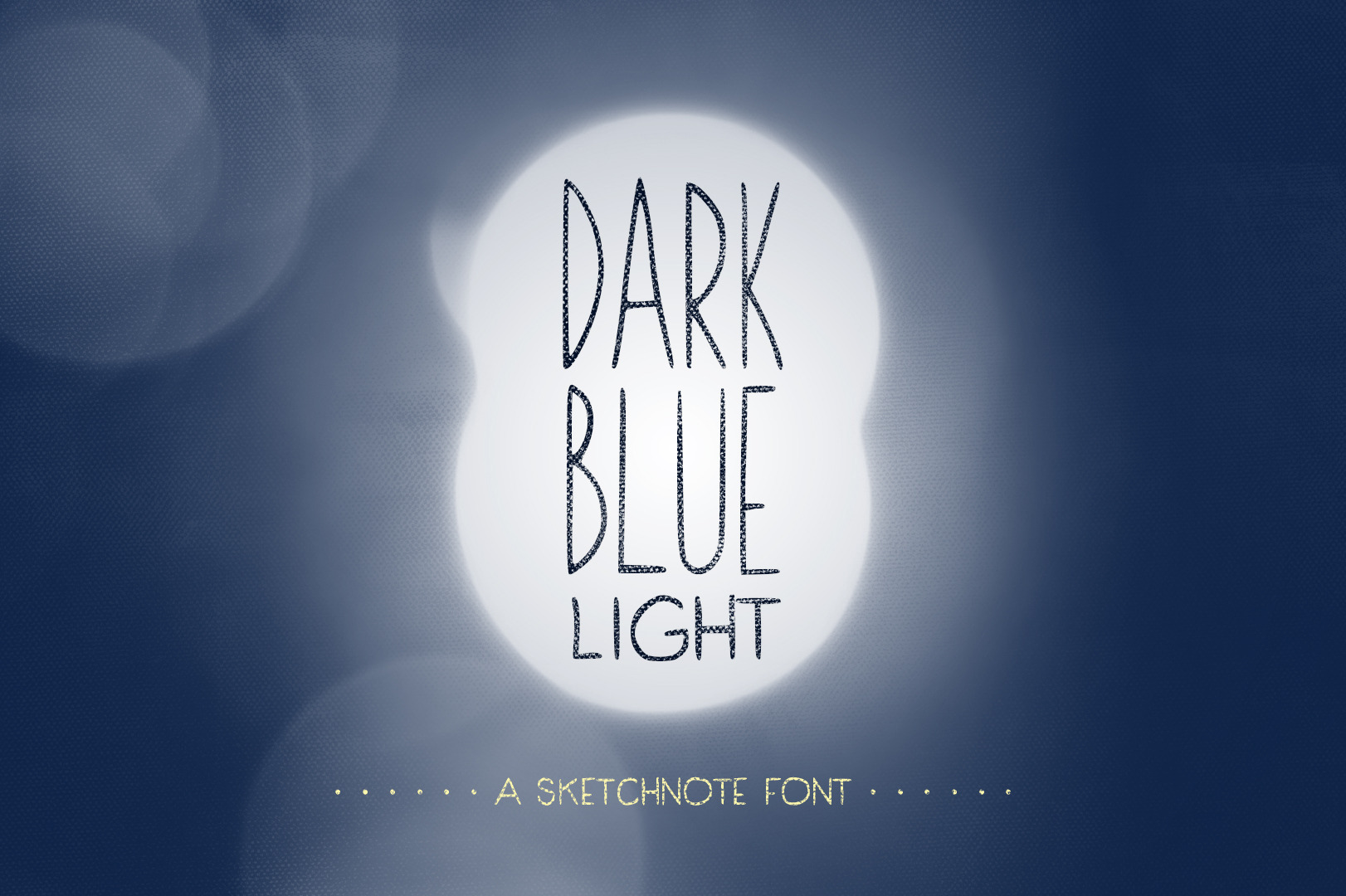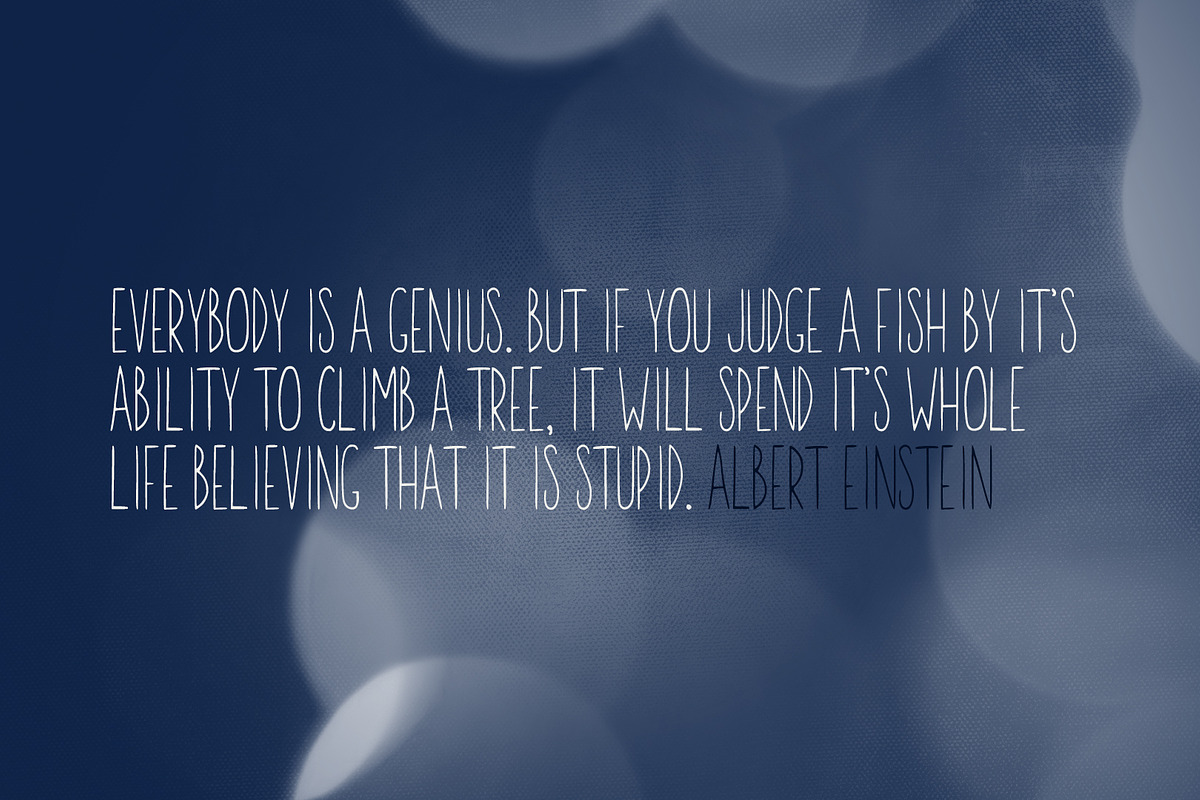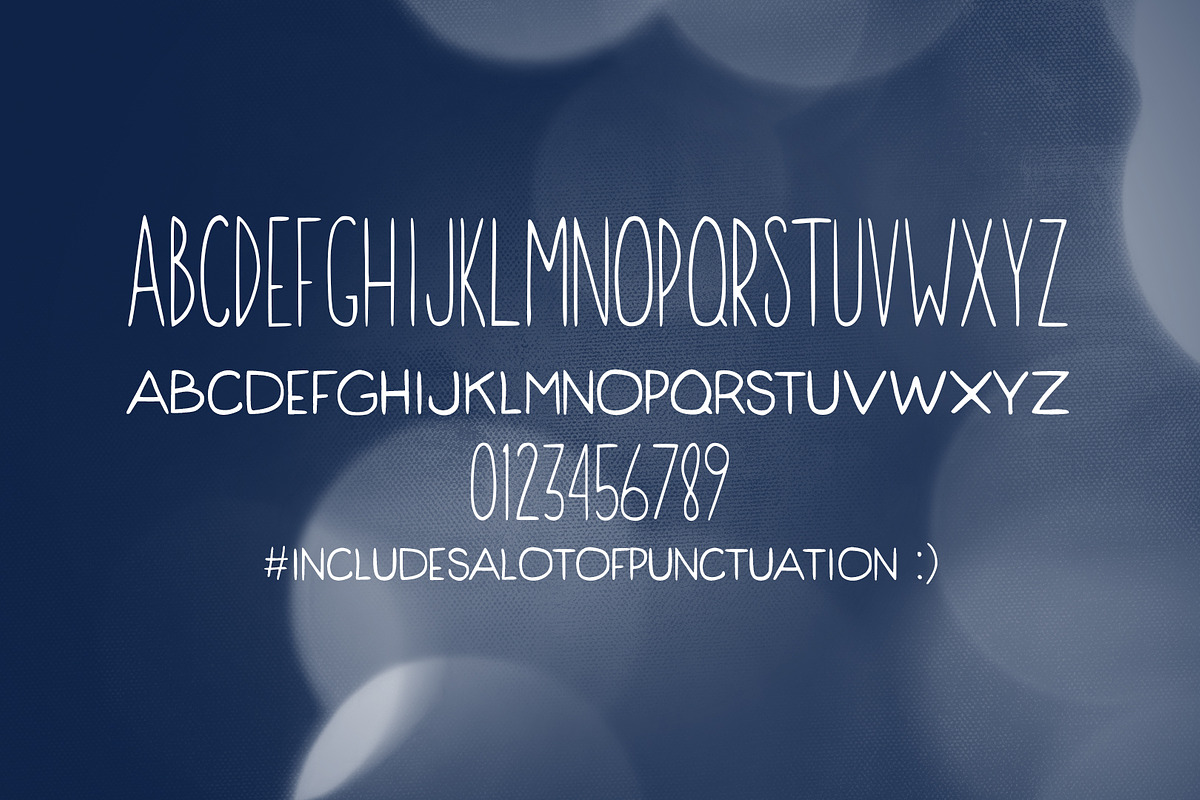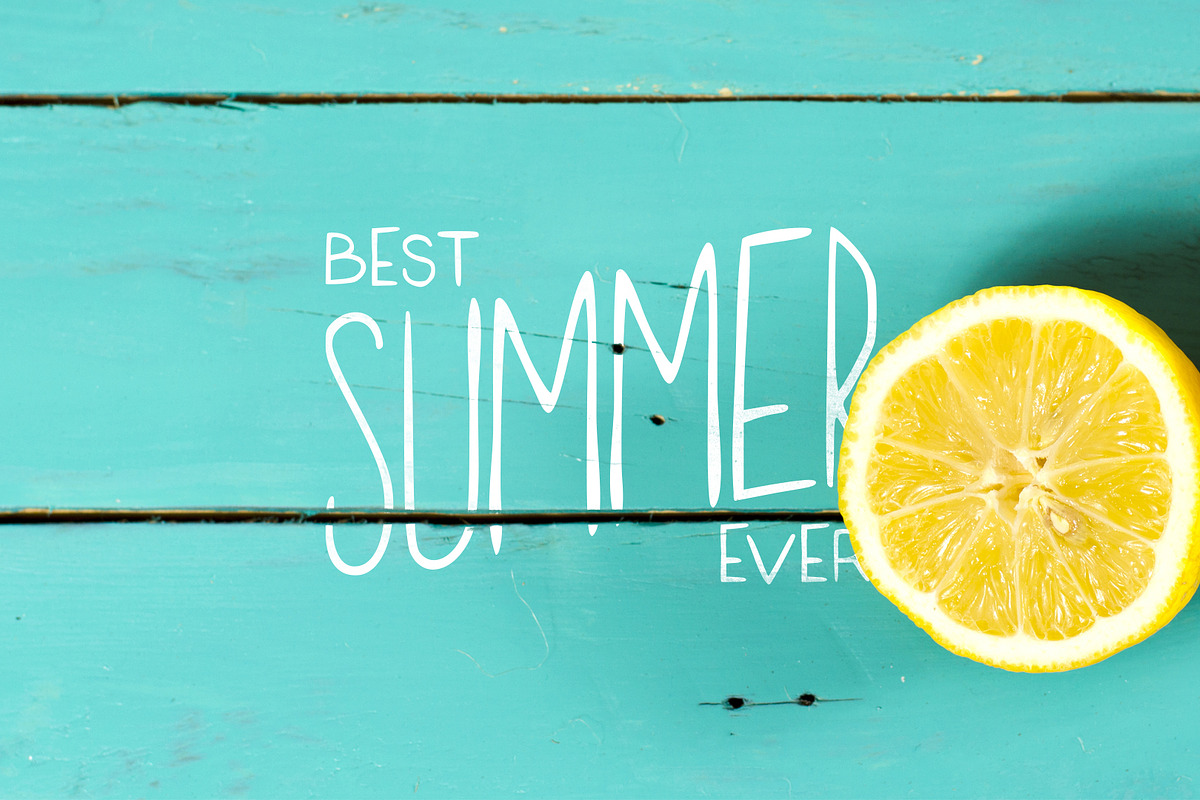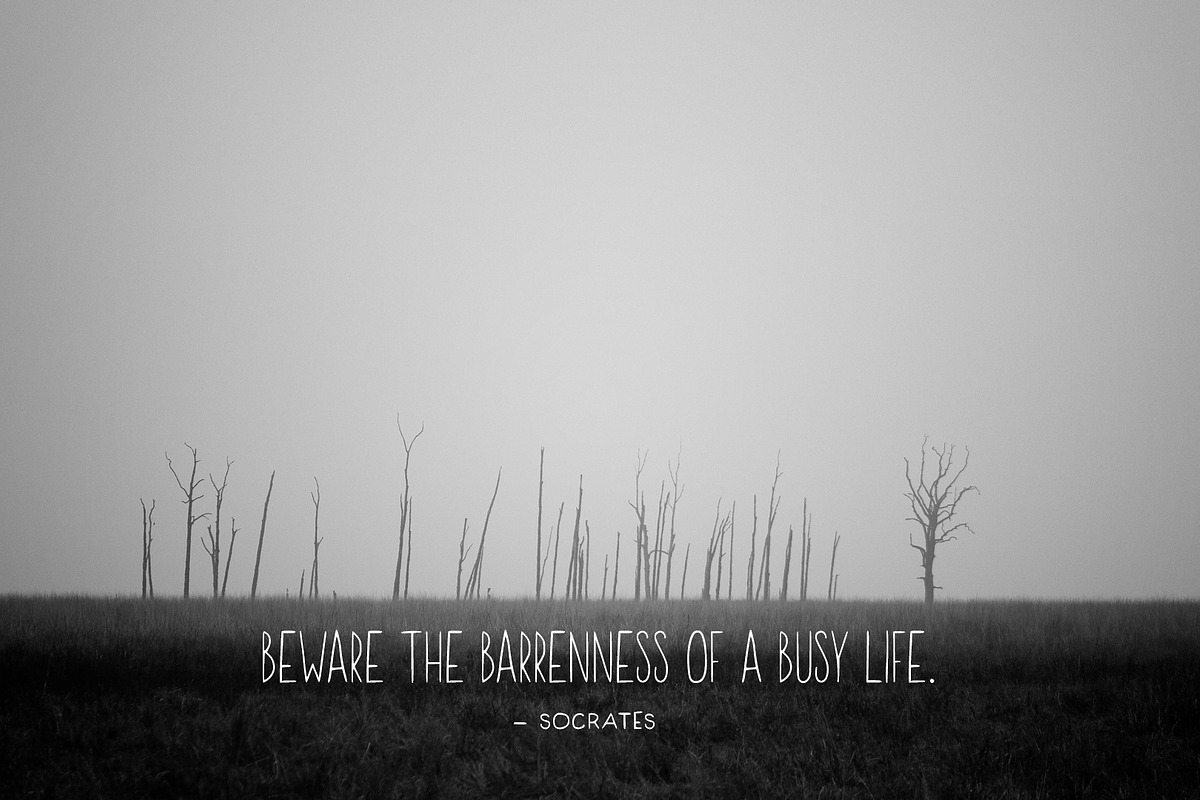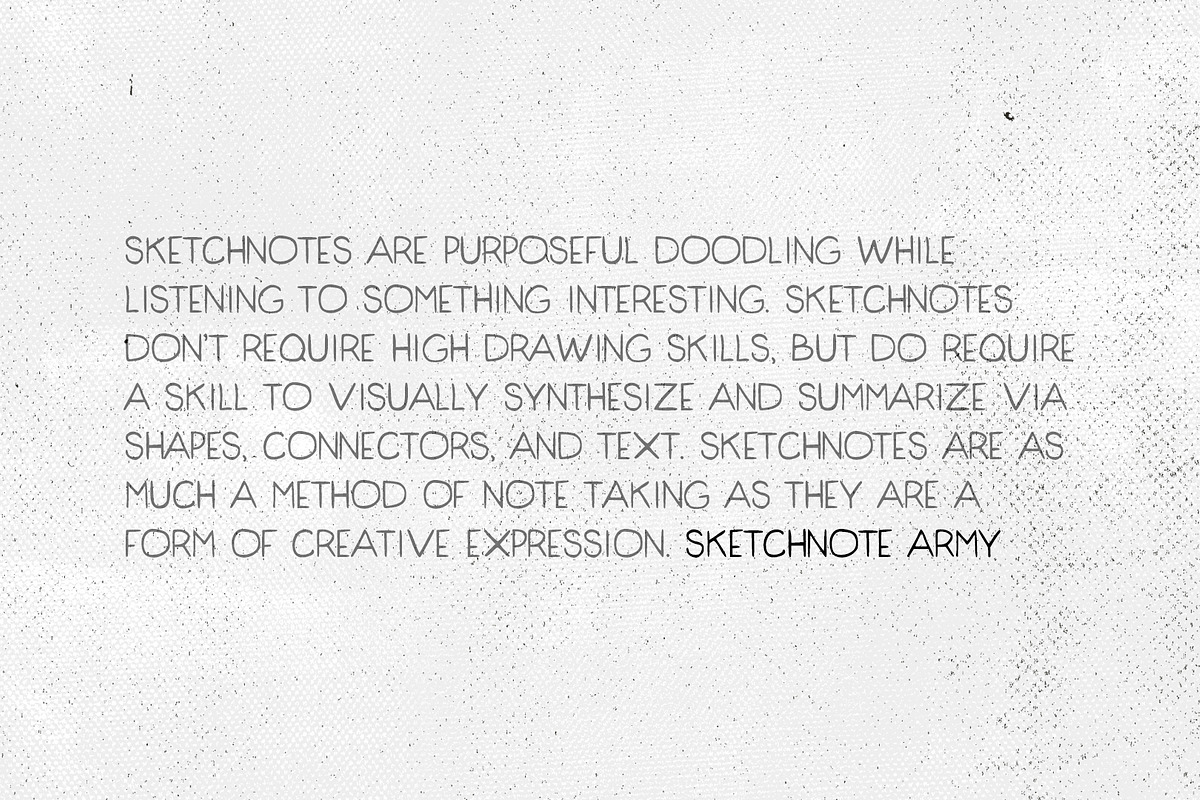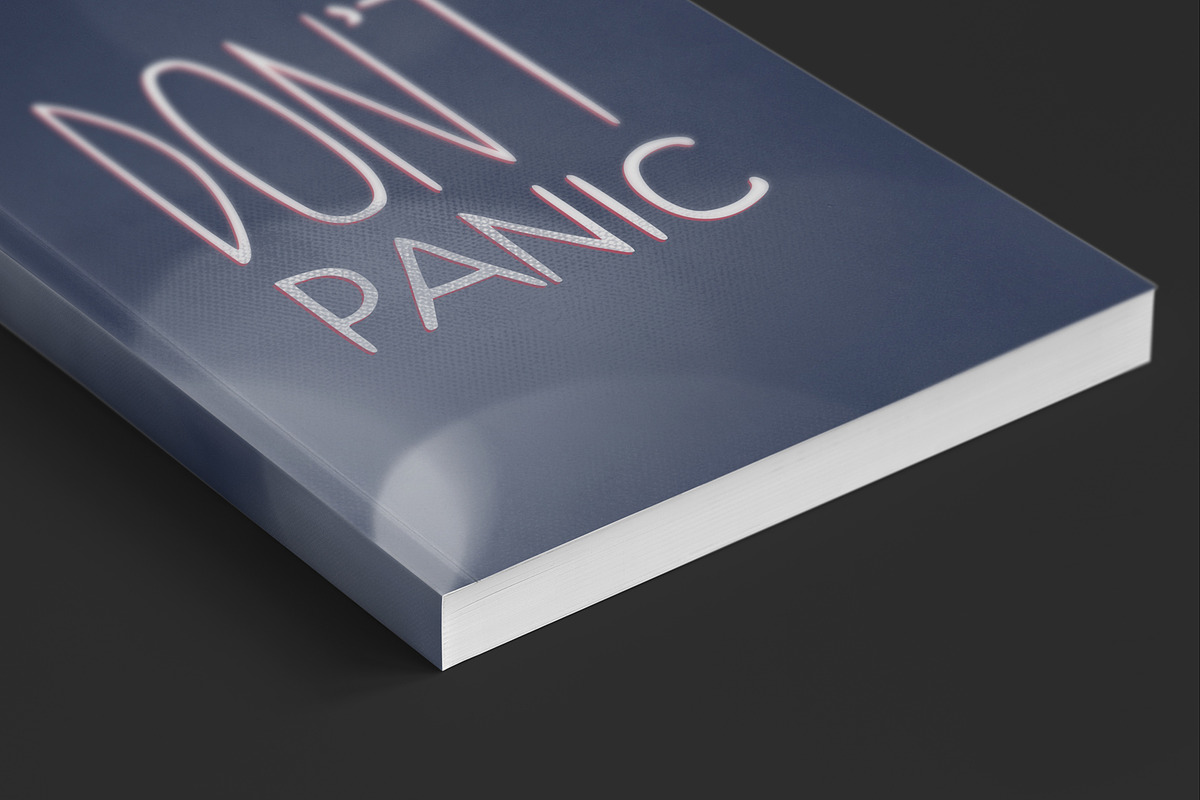
Dark Blue Light: A Handdrawn Font
Inspired by the lettering in my Illustrated Notes (see at mitchmade.com/sketchnotes ), Dark Blue Light is the first in a series of sketchnote fonts. This thin weight, hand drawn font that looks great as display type, as well as chunks of body text.
- 2 styles: Tall and Short
- Almost all punctuation is included (I'd love to know if you think something is missing)
I recently updated this with some tweaked character forms, improved kerning, and some additional punctuation.